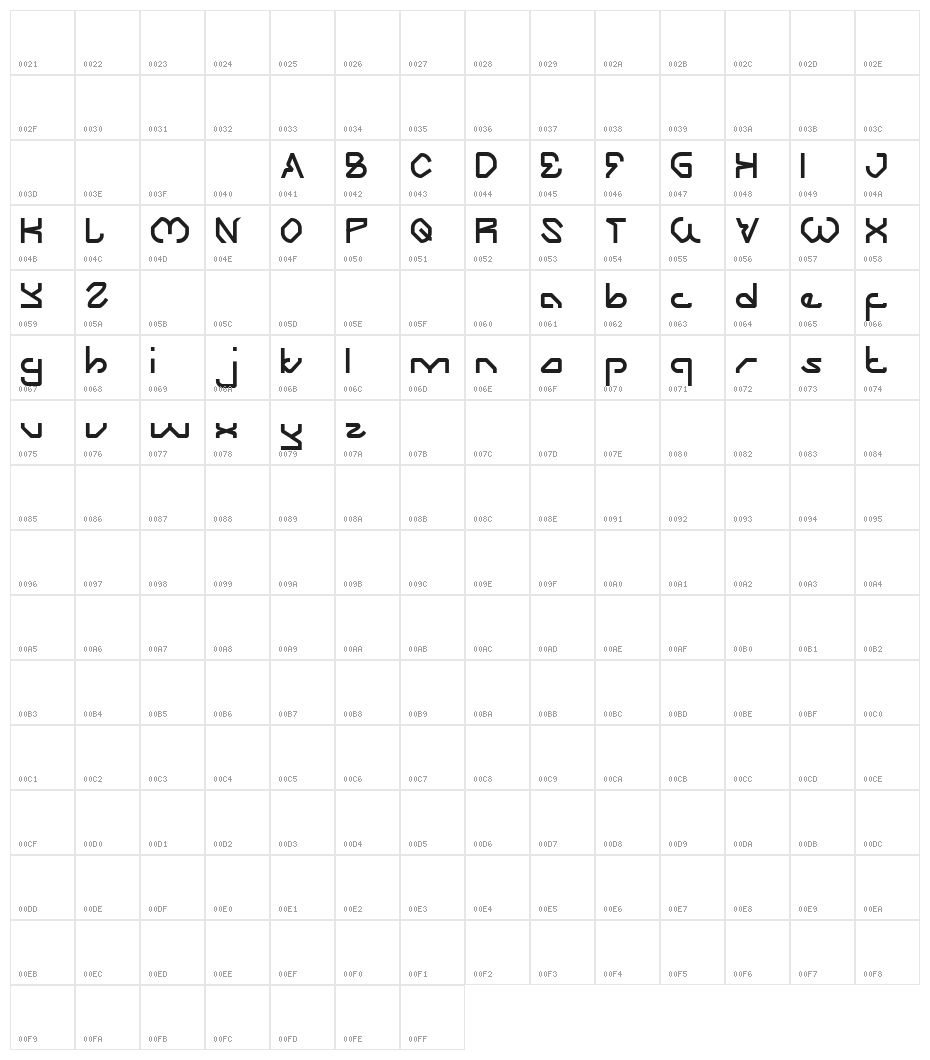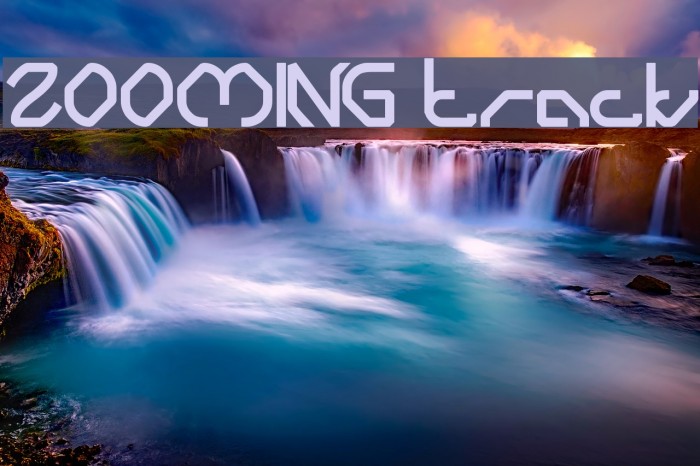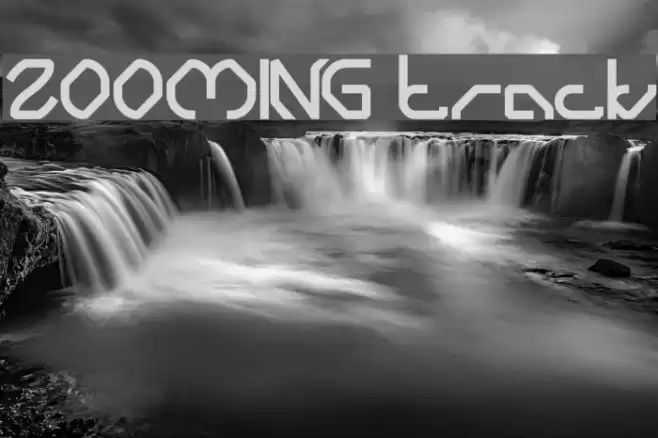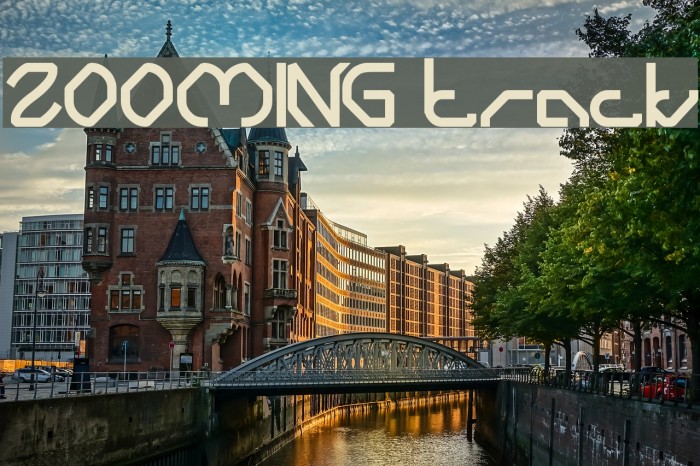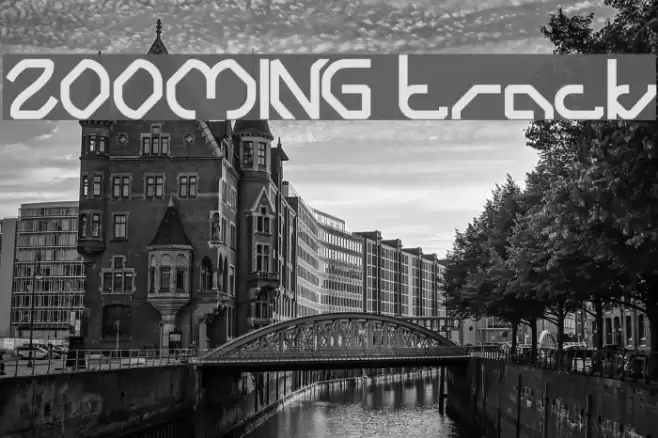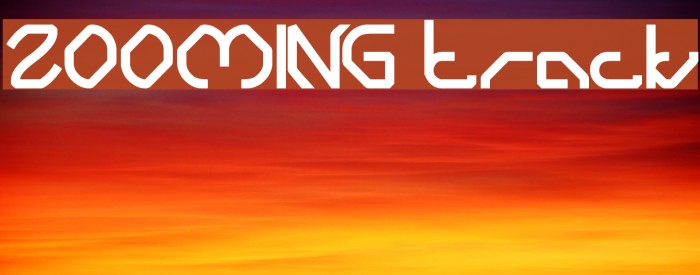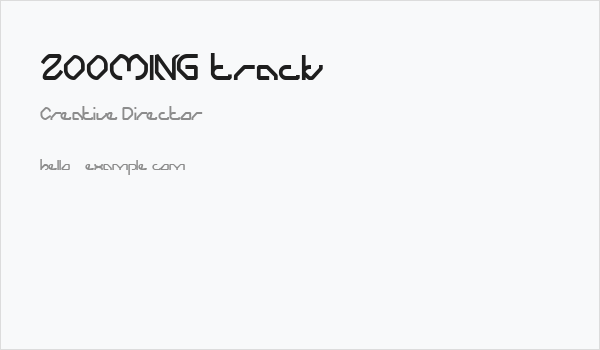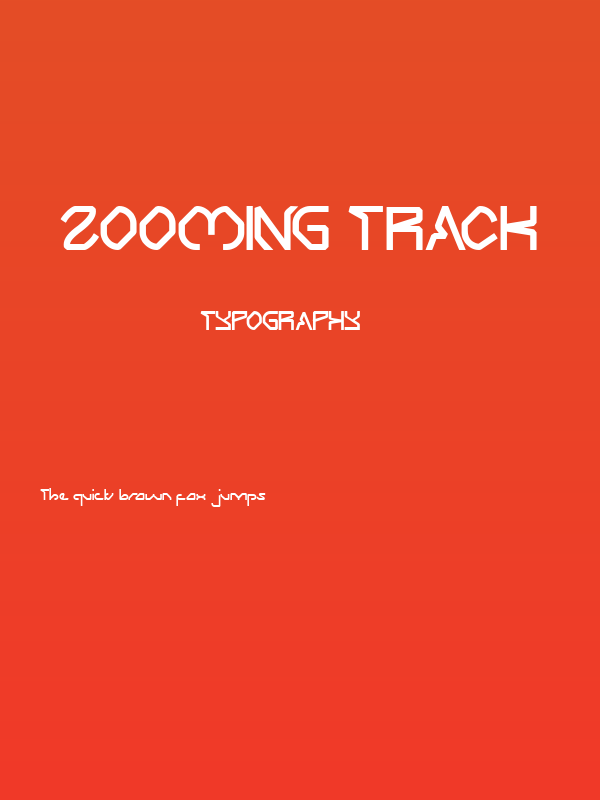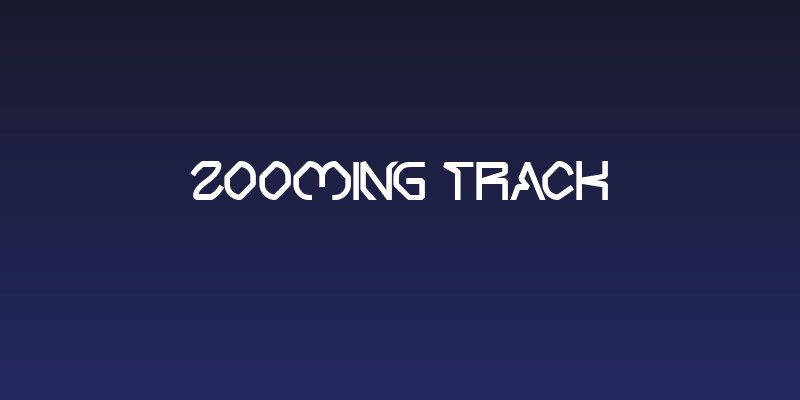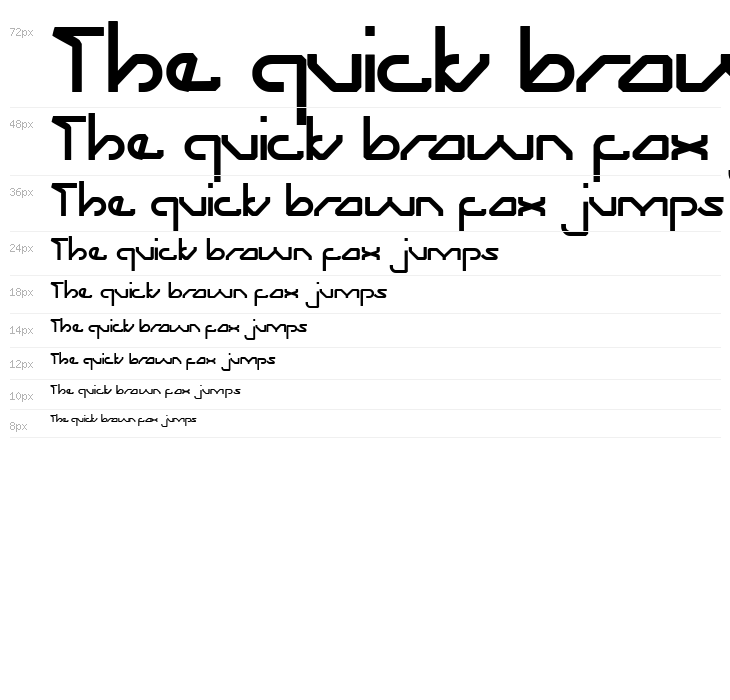
ZOOMING track Font
ZOOMING track Description
This font features a futuristic and geometric design with sharp angles and a bold presence. The uppercase letters are distinct with a blocky, angular style that gives a sense of modernity and innovation. The lowercase letters maintain the geometric theme, offering a cohesive look across different text cases. The numbers and special characters follow the same design principles, ensuring consistency throughout. This font is ideal for projects that require a modern and edgy aesthetic, such as technology branding, sci-fi themed designs, or digital interfaces.
| Proposed Projects | Ideal for technology branding, sci-fi themed designs, digital interfaces, and modern advertising. |